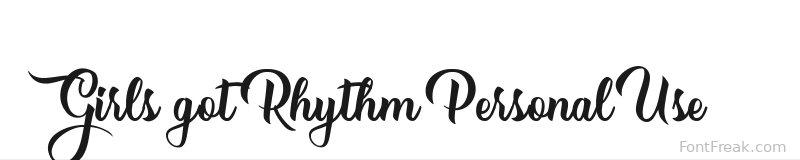
Girls got Rhythm Personal Use
The "Girls got Rhythm Personal Use" font by Billy Argel Fonts is a captivating handwritten style typeface that exudes a playful yet elegant charm. This script font features a flowing and dynamic design, with varying stroke weights that create an inviting rhythm. The delicate contrast between thick and thin lines enhances its visual appeal, while the graceful curves and loops add a touch of sophistication. The spacing is well-balanced, ensuring that each letter connects seamlessly, making it perfect for creating a cohesive look in any project.
This font is ideal for a variety of personal and creative applications. It shines in wedding invitations, where its romantic flair can elevate the overall aesthetic. It can also be effectively used in social media graphics, movie posters, and promotional materials for boutique shops or cafes, as it captures attention while maintaining an approachable feel. Additionally, content creators seeking to add personality to their digital designs will find this font versatile and engaging.
Targeting graphic designers, small business owners, and content creators alike, the "Girls got Rhythm Personal Use" font provides an opportunity to infuse projects with a unique character. Its delightful design appeals to those looking to differentiate their brand or personal style without sacrificing readability.
What sets the "Girls got Rhythm Personal Use" font apart is its ability to combine whimsy with elegance. It is a font that speaks to the creativity and individuality of its users, making it a perfect choice for anyone looking to make a statement. For those interested in adding this charming typeface to their collection, the "Girls got Rhythm Personal Use font free download" is an excellent opportunity to embrace a fun and stylish design element.